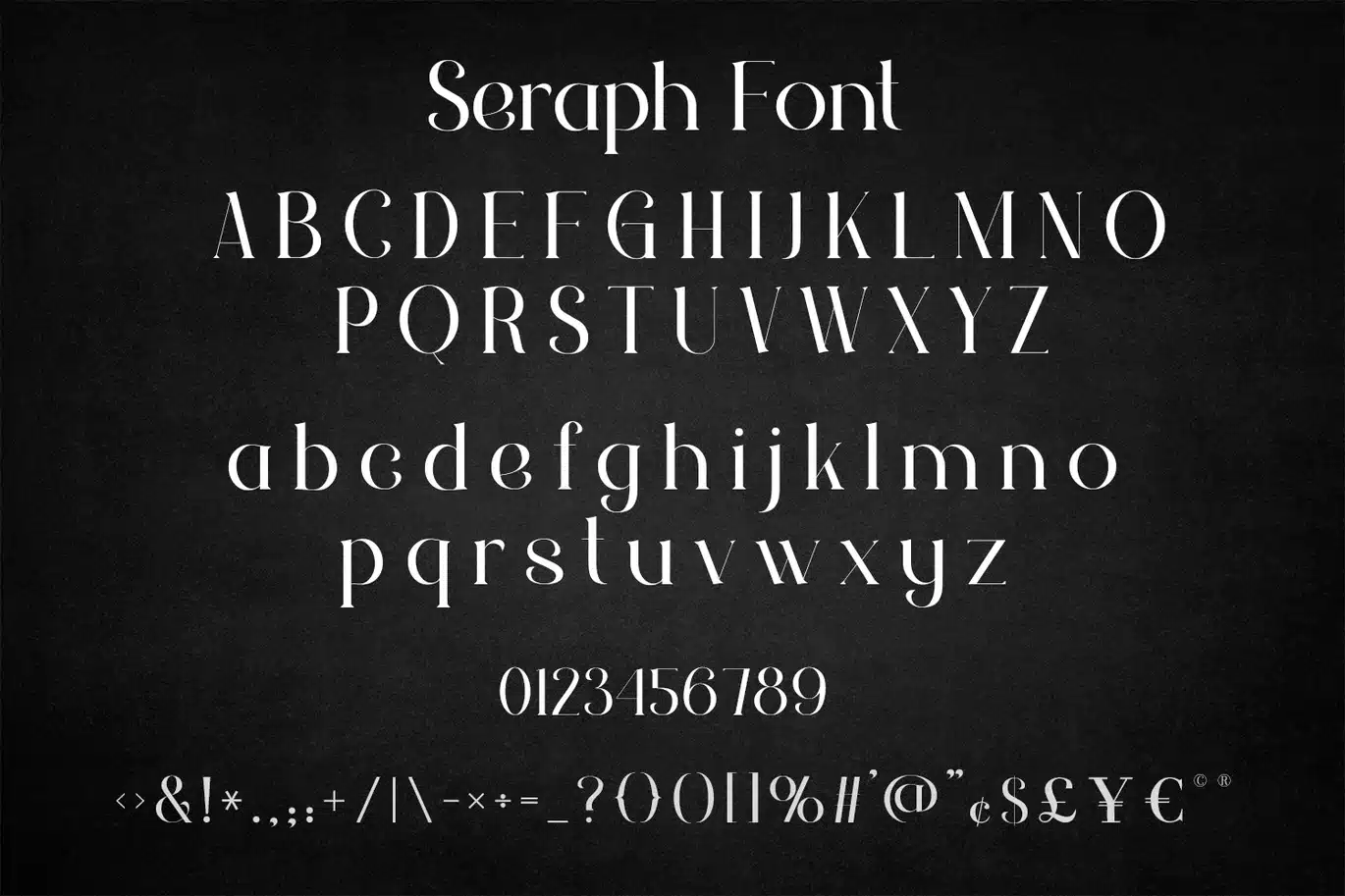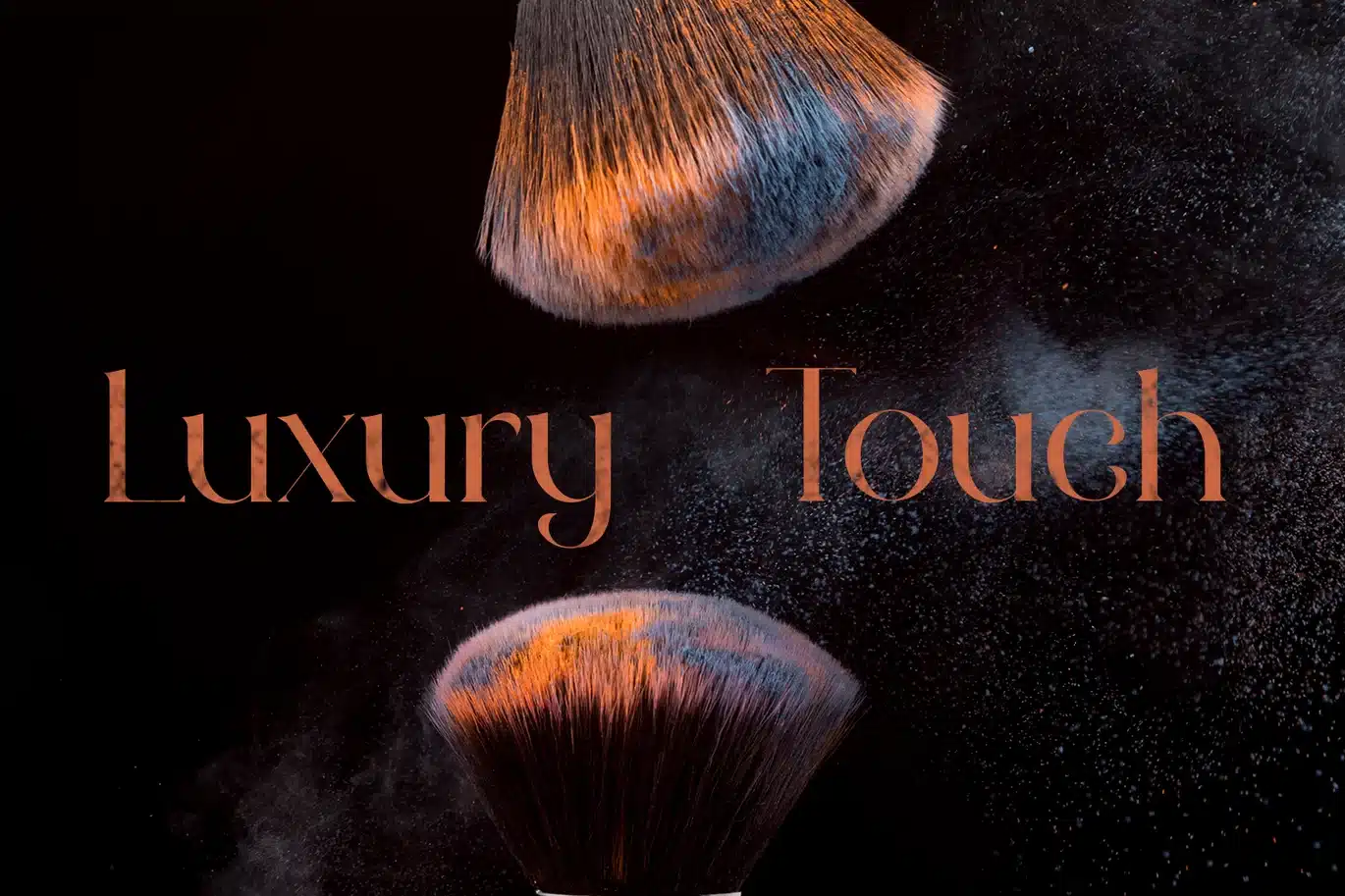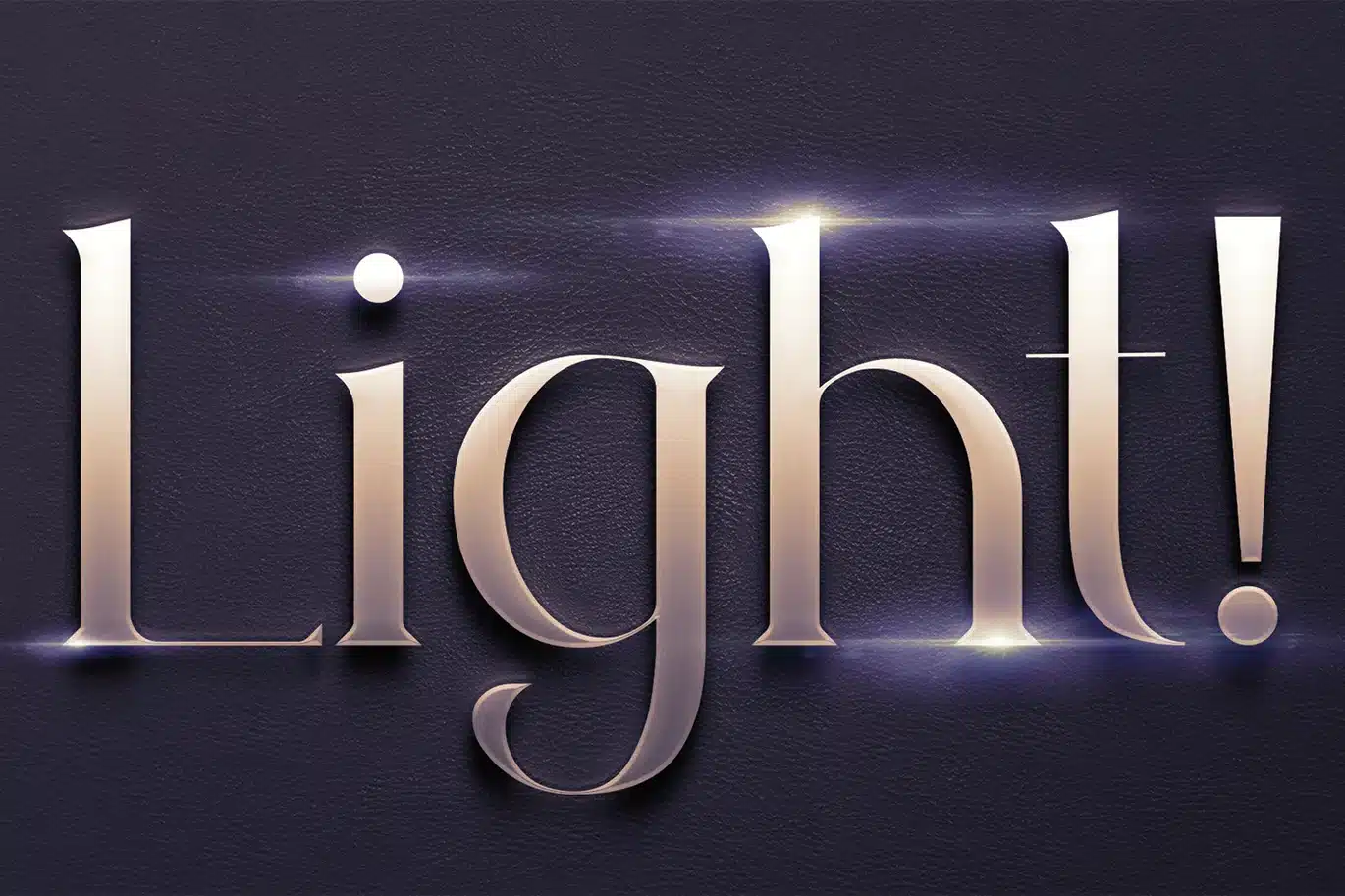
Seraph – Display Serif Typeface Font
Seraph - Decorative Serif Font
Seraph is a premium and elegant decorative serif font designed for high-end projects. Featuring distinctive high-contrast strokes and beautifully crafted curved terminals, this luxury typeface adds a sophisticated touch to any creative work. It is perfectly suited for premium product packaging, elegant branding, corporate identity, editorial layouts, and exclusive event invitations. With its refined uppercase letters and stylized lowercase swashes, Seraph delivers a majestic, professional, and timeless aesthetic to elevate your design portfolio.
- Unique letterforms